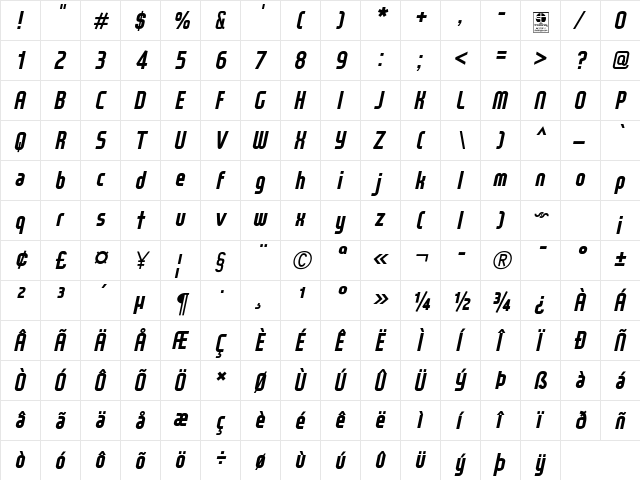
WOX~Modelist Bold Italic Demo Regular Font Preview
| Foundry | StudioTypo |
| Designer | MEHMET ABACI |
Design Context for WOX~Modelist Bold Italic Demo Typeface
WOX~Modelist Bold Italic Demo takes a measured approach to typography — its balanced proportions and neutral character make it a reliable workhorse for both digital and print work. The slanted form adds forward momentum and visual energy. Its bold stroke weight gives it real presence on the page.
Pro Tip: Try WOX~Modelist Bold Italic Demo for annotation and caption copy alongside an upright companion — the contrast in angle creates a dynamic but ordered typographic system.